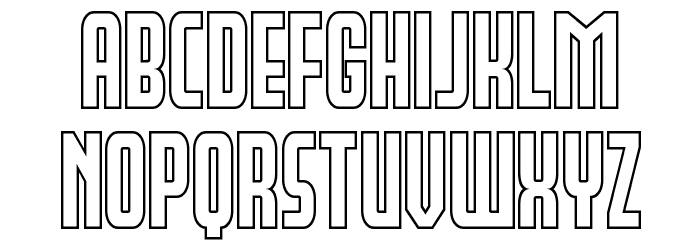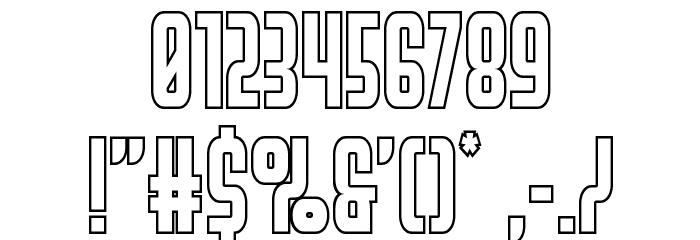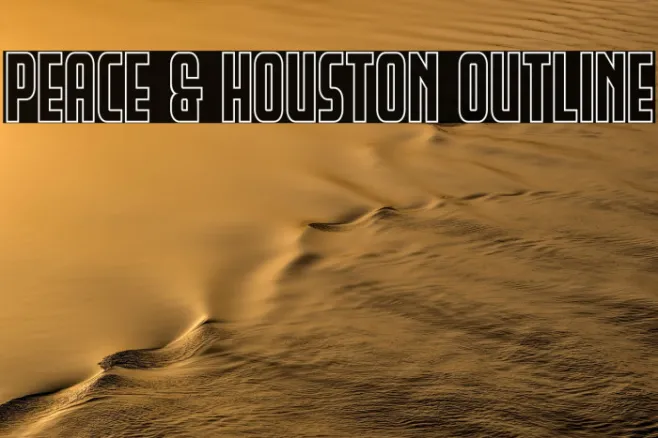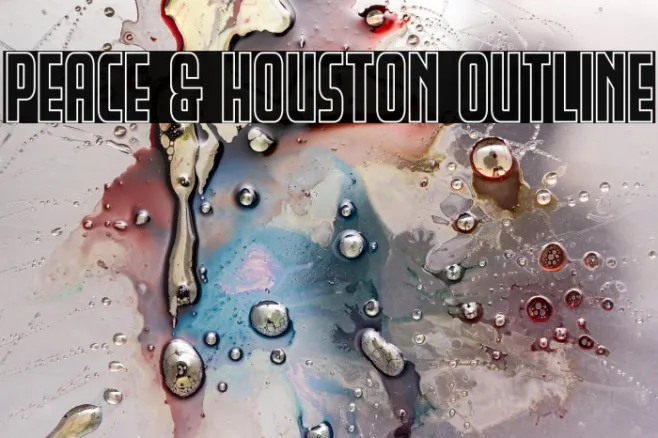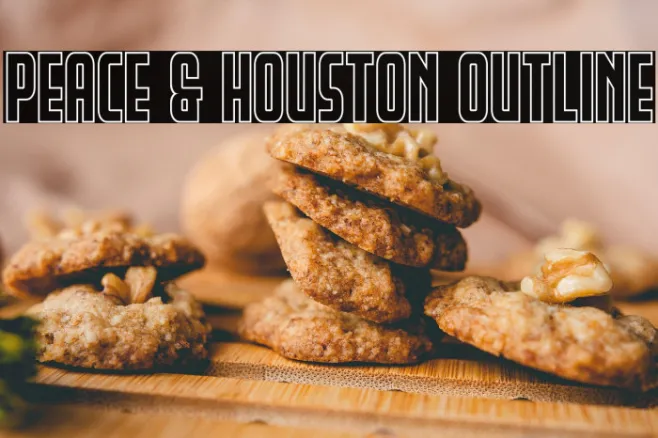
Peace & Houston Outline Font
This font features a bold, geometric outline style that emphasizes each character's structure with a hollow interior. The uppercase letters are uniform in height and width, creating a cohesive and balanced appearance. The characters are designed with straight lines and sharp angles, giving them a modern and futuristic look. The numbers and special characters maintain the same stylistic approach, ensuring consistency throughout. This font's outline design makes it ideal for creating eye-catching headlines and titles, where the focus is on the shape and form of the letters rather than filling. The spacing between characters is normal, allowing for clear readability while maintaining the font's distinctive style.
A bold, geometric outline font with a modern, futuristic appearance.
- Proposed Projects: Ideal for headlines, posters, logos, and any design requiring a striking, modern typeface.